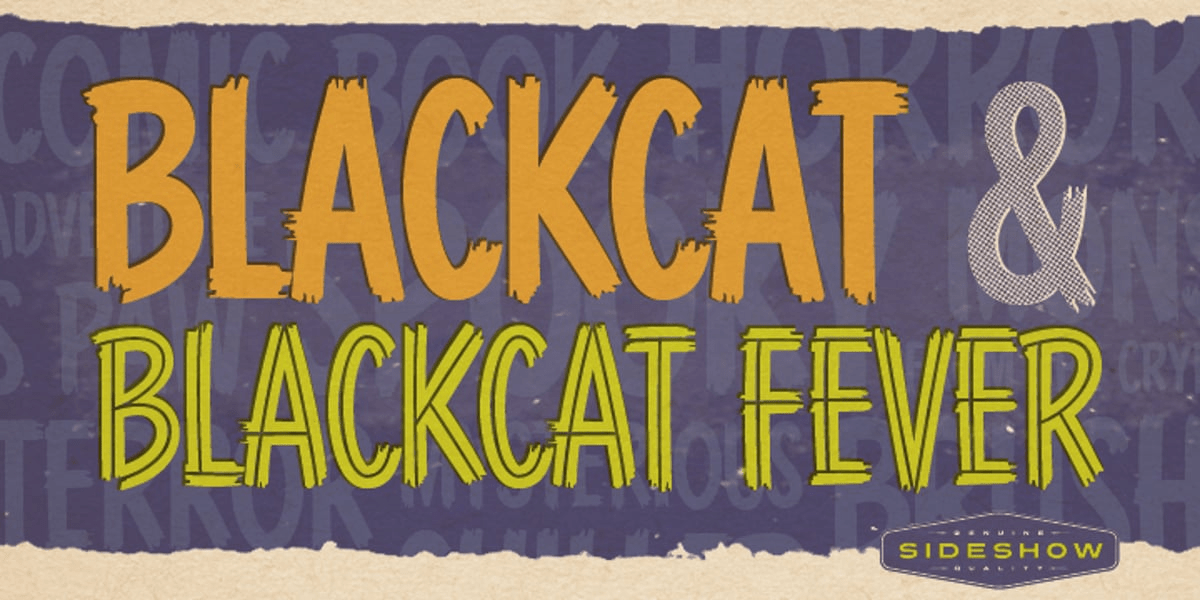
Blackcat
About Blackcat
Get the chills with Blackcat and Blackcat Fever by the talented artist and illustrator Sam Gambino! These playful and spooky retro brush scripts were inspired by the creepy comic books of the 1950\’s, this scratchy font looks like it came straight from…